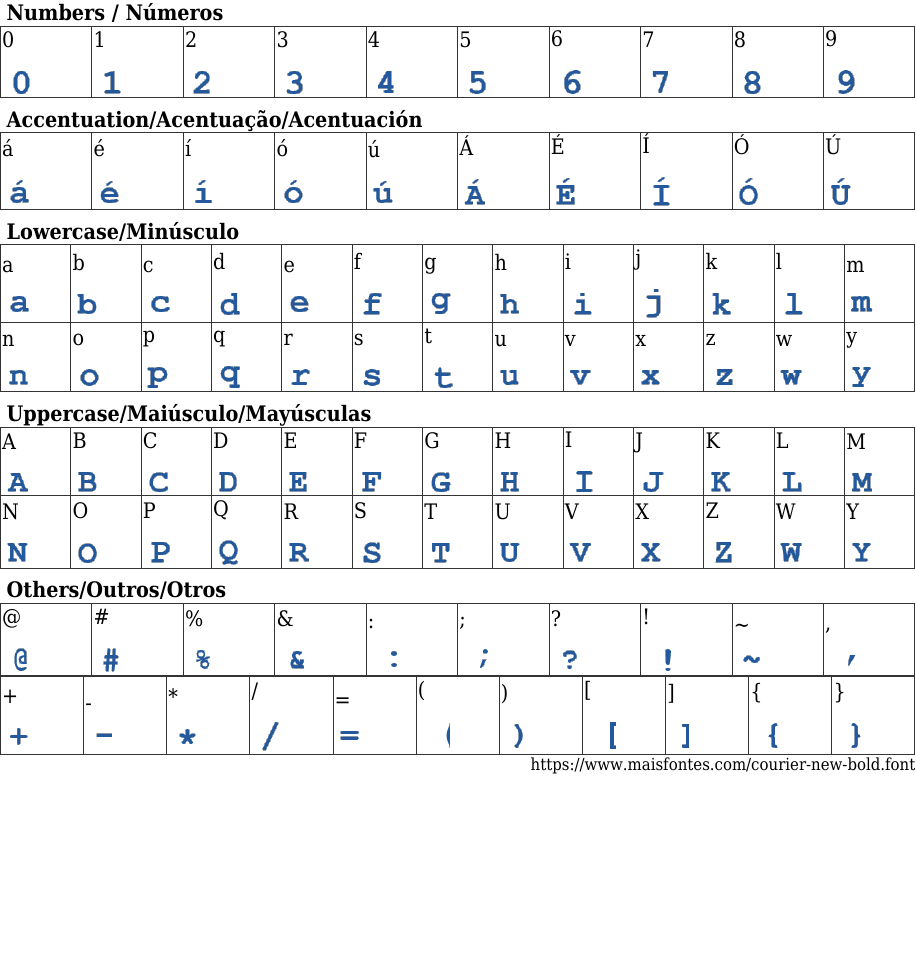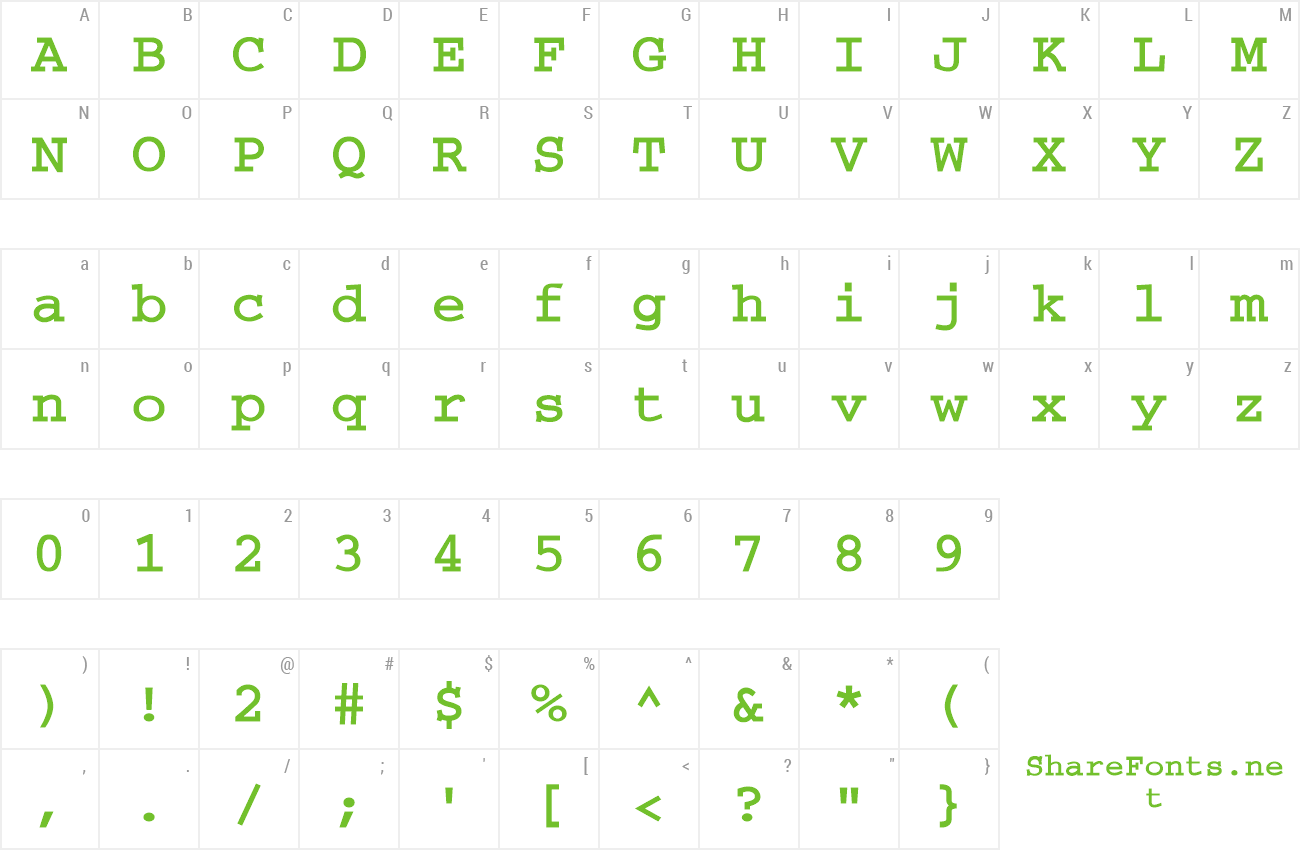
Courier Font Bold
Courier Font Bold - Courier is a monospaced typeface for use in tabular material, technical documentation, and word processing. It was designed in the mid. Unleash your creativity with our free bold, courier fonts. Courier std bold by adobe systems incorporated. Download courier std bold font. Perfect for adding a vintage touch to your unique designs.
Courier std bold by adobe systems incorporated. Unleash your creativity with our free bold, courier fonts. It was designed in the mid. Courier is a monospaced typeface for use in tabular material, technical documentation, and word processing. Download courier std bold font. Perfect for adding a vintage touch to your unique designs.
It was designed in the mid. Unleash your creativity with our free bold, courier fonts. Courier is a monospaced typeface for use in tabular material, technical documentation, and word processing. Perfect for adding a vintage touch to your unique designs. Download courier std bold font. Courier std bold by adobe systems incorporated.
Courier std bold by adobe systems incorporated. Perfect for adding a vintage touch to your unique designs. Download courier std bold font. Courier is a monospaced typeface for use in tabular material, technical documentation, and word processing. Unleash your creativity with our free bold, courier fonts.
Download courier std bold font. Perfect for adding a vintage touch to your unique designs. Courier std bold by adobe systems incorporated. Courier is a monospaced typeface for use in tabular material, technical documentation, and word processing. Unleash your creativity with our free bold, courier fonts.
Download courier std bold font. Courier is a monospaced typeface for use in tabular material, technical documentation, and word processing. Perfect for adding a vintage touch to your unique designs. Courier std bold by adobe systems incorporated. Unleash your creativity with our free bold, courier fonts.
Courier std bold by adobe systems incorporated. Unleash your creativity with our free bold, courier fonts. It was designed in the mid. Perfect for adding a vintage touch to your unique designs. Download courier std bold font.
Courier is a monospaced typeface for use in tabular material, technical documentation, and word processing. Courier std bold by adobe systems incorporated. Unleash your creativity with our free bold, courier fonts. It was designed in the mid. Perfect for adding a vintage touch to your unique designs.
Perfect for adding a vintage touch to your unique designs. It was designed in the mid. Courier std bold by adobe systems incorporated. Courier is a monospaced typeface for use in tabular material, technical documentation, and word processing. Download courier std bold font.
Courier std bold by adobe systems incorporated. Unleash your creativity with our free bold, courier fonts. Download courier std bold font. It was designed in the mid. Courier is a monospaced typeface for use in tabular material, technical documentation, and word processing.
Courier is a monospaced typeface for use in tabular material, technical documentation, and word processing. Download courier std bold font. Unleash your creativity with our free bold, courier fonts. Perfect for adding a vintage touch to your unique designs. It was designed in the mid.
It was designed in the mid. Download courier std bold font. Unleash your creativity with our free bold, courier fonts. Perfect for adding a vintage touch to your unique designs. Courier std bold by adobe systems incorporated.
Perfect For Adding A Vintage Touch To Your Unique Designs.
Unleash your creativity with our free bold, courier fonts. Courier is a monospaced typeface for use in tabular material, technical documentation, and word processing. Download courier std bold font. It was designed in the mid.